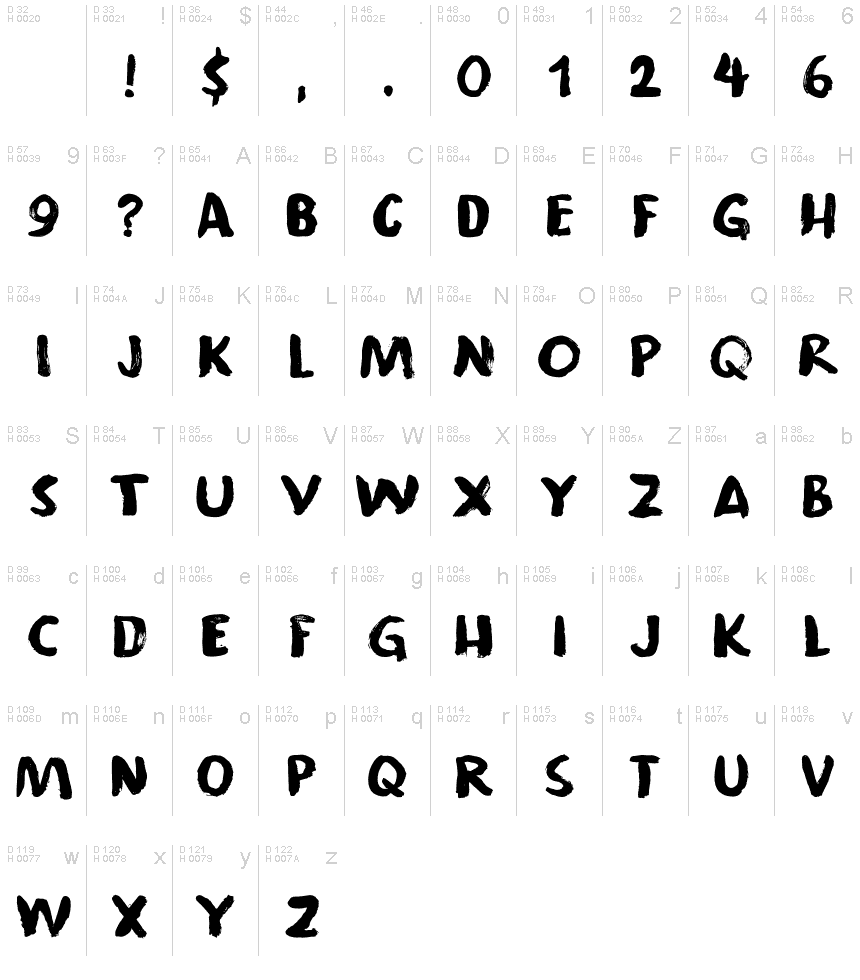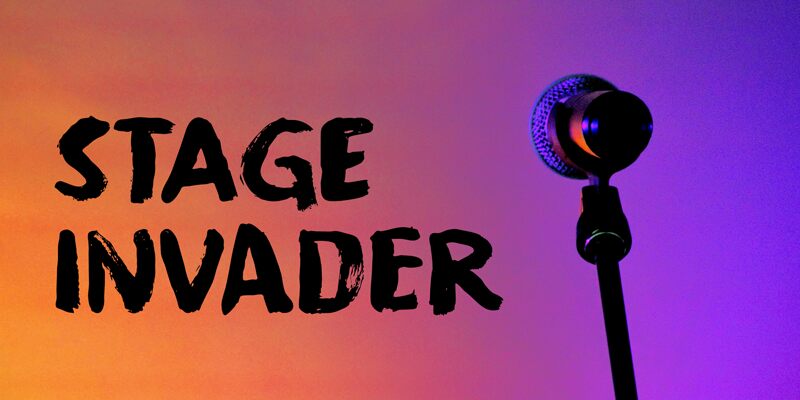
Stage Invader DEMO Regular
Stage Invader, designed by Hanoded, is a font that captures the raw energy and immediacy of a live performance with its bold brush style. The thick, confident strokes convey a sense of movement and dynamism, as if each letter has been swiftly painted onto the surface with an artist's brush. Its irregular edges and varying line weights evoke a handcrafted feel that stands out in any creative context.
The aesthetic appeal of Stage Invader lies in its ability to bring an edgy, unrefined touch to visual compositions. Its bold weight ensures legibility from afar, making it an excellent choice for posters, album covers, and any project requiring a statement typeface with personality.
Whether used for headlines that demand attention or for accentuating key points in artistic designs, Stage Invader's style is versatile enough to suit various creative endeavors. Its unique blend of casual brush strokes with assertive boldness allows designers to craft compelling visuals that resonate with viewers seeking authenticity and flair.